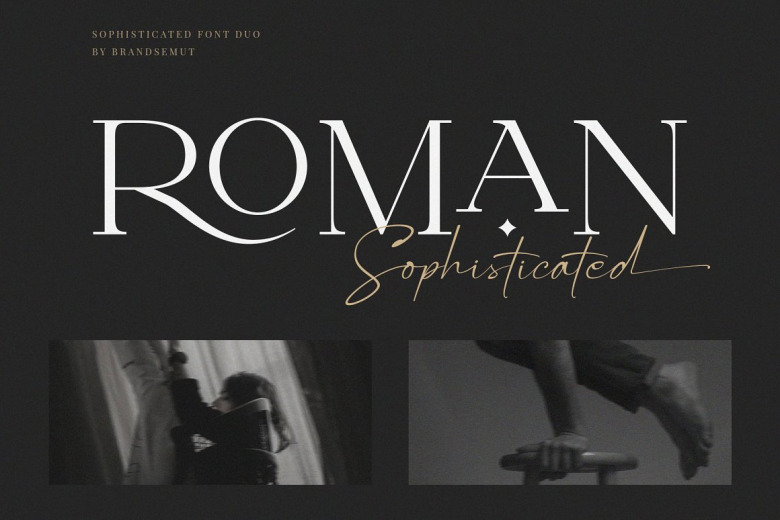
Roman Sophisticated Font
Presenting the latest font family of Roman Sophisticated. Created with a sense of luxury and style, the Roman Sophisticated Vintage Font has a signature script—perfect for all your high style purposes; plus elegant mix of serif typeface to match it with! Ready for use any suitably freehand logo. Roman Sophisticated is mainly used in distinctive style publications, brand designs, magazines and product packaging. It also performs well as an invitation script.
This font suite allows you unlimited combinations and options using it as a base Roman Sophisticated was designed with OpenType features–it contains ligatures, alternates, numbers, punctuation marks, various accented characters and language support.
Roman Sophisticated Font Duo